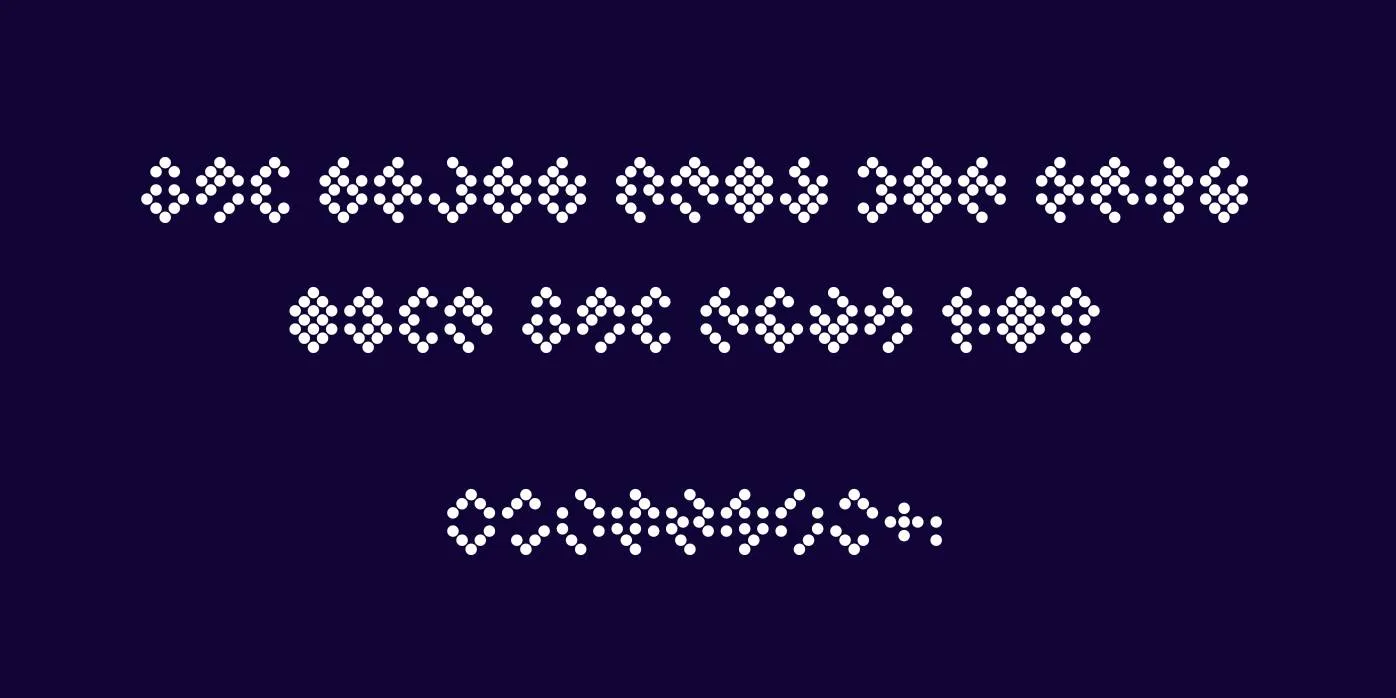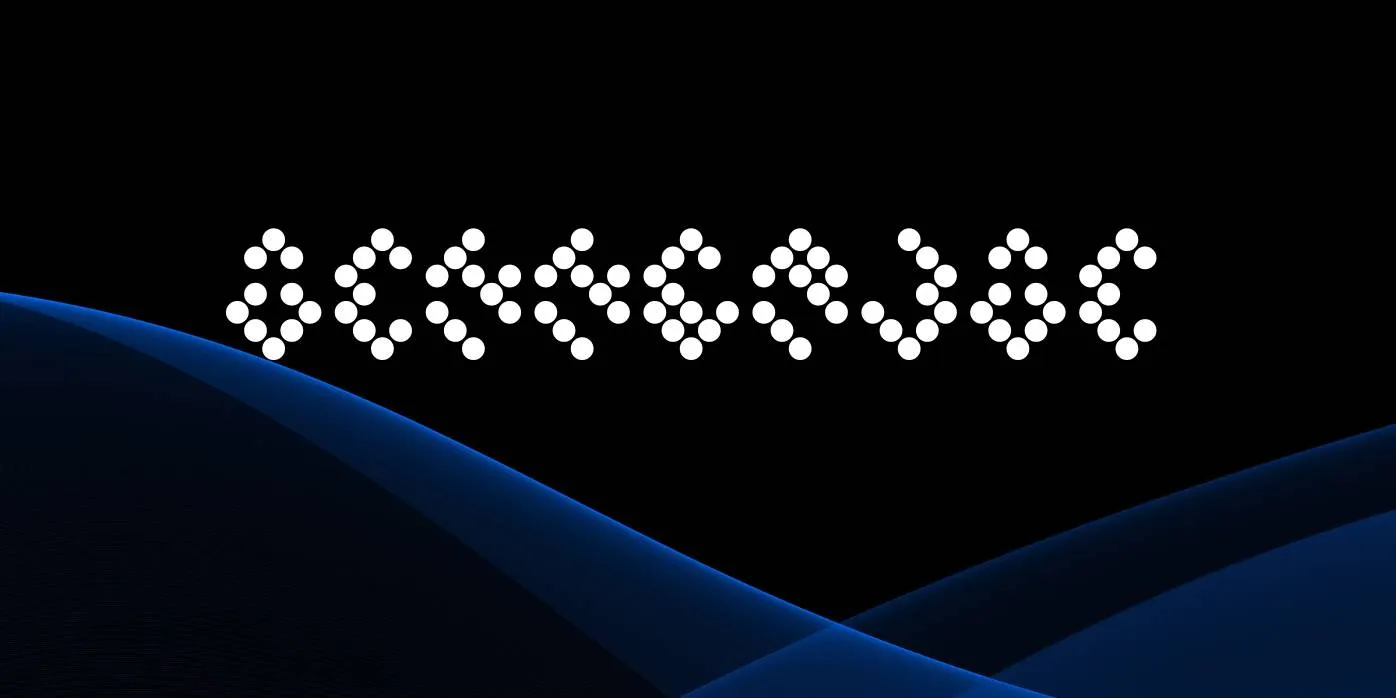
Tellarite Font
Tellarite Font belongs to the texture of the dingbat family. This typeface was designed in the Tellaran language which was used by the Tellarite civilization. This font has some unusual dots and forms the shape of the image. It was designed by Neale Davidson and manufactured by Pixel Sagas.
You can use it for making logos for different logos for movies and video games. It is also suitable for making titles of sci-fi movies and video games. The projects that are related to aliens in movies, cartoons, and web series you can also use this font. This font is already used in a very famous TV series The Star Trek.
It can be used to print banners and posters for advertisement purposes. For product packing and branding this font is also a suitable choice. You can also make amazing designs in Adobe Photoshop, CSS, and Canva by using this font. It is considered a nice font for both print and digital media.
It is a very interesting and unique dingbat font. This font has some unusual dots and forms the shape of the image. It was used by many TV shows related to Science fiction. Is Tellarite Font free?